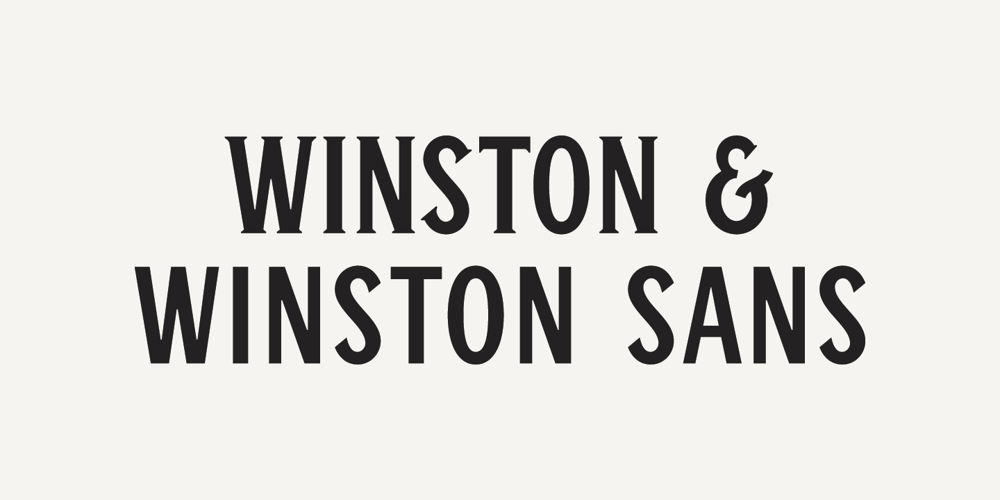
Winston & Winston Sans Font Family was designed by Josh Carnley and published by Carnley Design Co.. Winston & Winston Sans contains 2 styles and family package options. Winston was inspired by strolls through downtown Winston-Salem, NC. Back in the 60’s, 70’s and 80’s Winston-Salem was responsible for supplying tobacco and hosiery to people around the world. Now, smoke stacks and ghost signage fill the downtown area. Winston blends the modern city aesthetic with the vintage influences of classic advertising. All Caps typeface Capital letter alts US and Western European language support OTF file format